Unlock the elegance and clarity of LaTeX fonts within MATLAB. This guide demystifies how to use LaTeX’s superior typesetting capabilities to enhance your plots, figures, and presentations. Learn to incorporate mathematical symbols, Greek letters, and advanced formatting, making your data visualizations professional and easily understandable.
Discover why mastering MATLAB LaTeX fonts is a game-changer for scientific and engineering communication. Ever felt like your MATLAB plots and figures could use a touch more polish? Maybe you’ve seen sophisticated scientific papers with beautiful mathematical equations and wondered how they achieved such clarity.
The secret often lies in sophisticated typesetting, and when it comes to math and scientific notation, LaTeX is the undisputed champion. But what if you could bring that same power directly into your MATLAB workflow? You can! This guide will walk you through harnessing the power of MATLAB’s built-in LaTeX interpreter. We’ll break down how to use these fonts to make your data shine. No more struggling with clunky text tools – get ready to elevate your visualizations!
Why Use LaTeX Fonts in MATLAB?
MATLAB’s native text formatting is functional, but it falls short when dealing with complex mathematical expressions, Greek letters, superscripts, subscripts, and precise scientific notation. LaTeX, on the other hand, is a typesetting system renowned for its ability to produce high-quality documents, especially those heavily reliant on mathematical and scientific content. By integrating LaTeX capabilities into MATLAB, you gain access to:
- Professional Aesthetic: Achieve a polished, publication-ready look for your figures and presentations.
- Unmatched Clarity: Accurately represent complex mathematical formulas and symbols, ensuring your audience understands your data precisely.
- Standardization: Adopt a widely recognized standard for scientific typesetting, improving your work’s compatibility and recognition.
- Efficiency: Quickly incorporate sophisticated text elements without needing external software or complex workarounds.
Think of it like upgrading from a basic crayon set to a full palette of professional artist’s oils. Your creations will not only look better but communicate more effectively.
Understanding MATLAB’s Text Properties
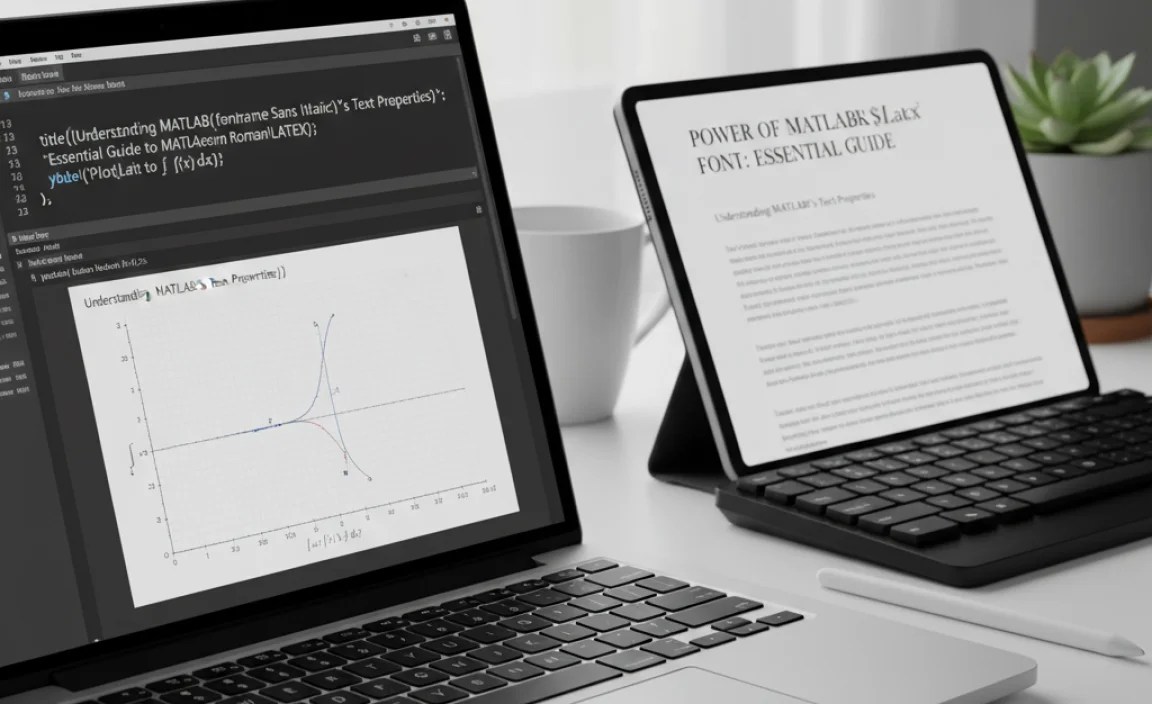
Before diving into LaTeX, it’s helpful to understand how MATLAB handles text in its graphics objects, particularly axes and figures. Key text properties include:
- String: The actual text content you want to display.
- FontName: The typeface of the text (e.g., ‘Arial’, ‘Times New Roman’).
- FontSize: The size of the text.
- FontWeight: Whether the text is ‘normal’ or ‘bold’.
- FontAngle: Whether the text is ‘normal’ or ‘italic’.
- Interpreter: This is the crucial property for our discussion. It tells MATLAB how to render the text string. The common options are ‘none’ (default), ‘tex’, and ‘latex’.
When the ‘Interpreter’ property is set to ‘tex’ or ‘latex’, MATLAB uses special commands within the text string to control formatting, symbols, and mathematical expressions. For our purposes, we’ll focus on ‘latex’.
Enabling the LaTeX Interpreter in MATLAB
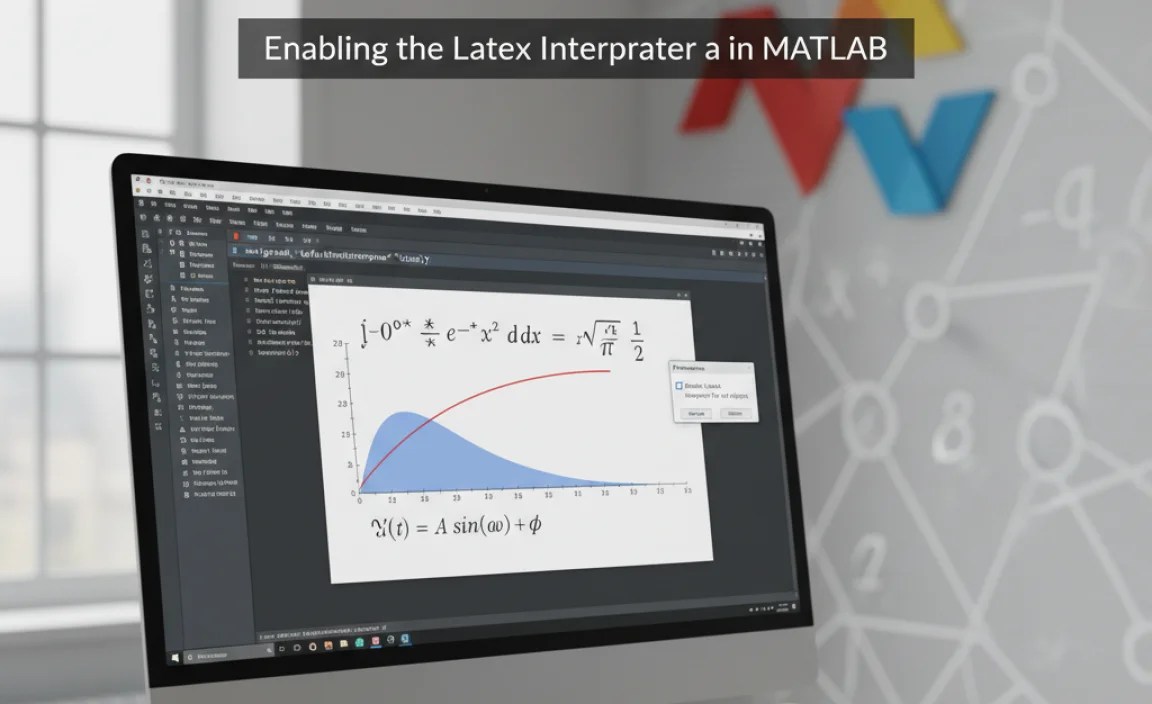
To use LaTeX commands, you need to tell MATLAB to interpret your text strings as LaTeX. This is done by setting the ‘Interpreter’ property of the relevant text object. Most commonly, you’ll do this when adding titles, axis labels, legends, or text annotations to your plots.
Here’s the basic syntax:
'Interpreter', 'latex'
You can apply this when creating graphics or by modifying existing ones.
Example: Setting a Title with LaTeX
Let’s say you have a plot and want to set its title using LaTeX for a Greek letter and some exponents.
In this example:
- We set the title using the string
'$sin(x)$ vs. $x$ with Amplitude $A=1$'. - Crucially, we added
'Interpreter','latex'to thetitlefunction. - Basic variables like
xandyare rendered as italicized variables, which is standard mathematical convention. - The
sinfunction is rendered in a roman font, also standard. - The dollar signs (
$) around parts of the text tell MATLAB that this section should be interpreted using LaTeX rules.
You’ll notice that the Greek letter $pi$ is automatically rendered with a backslash command: pi. More on these commands soon!
Essential LaTeX Commands for MATLAB
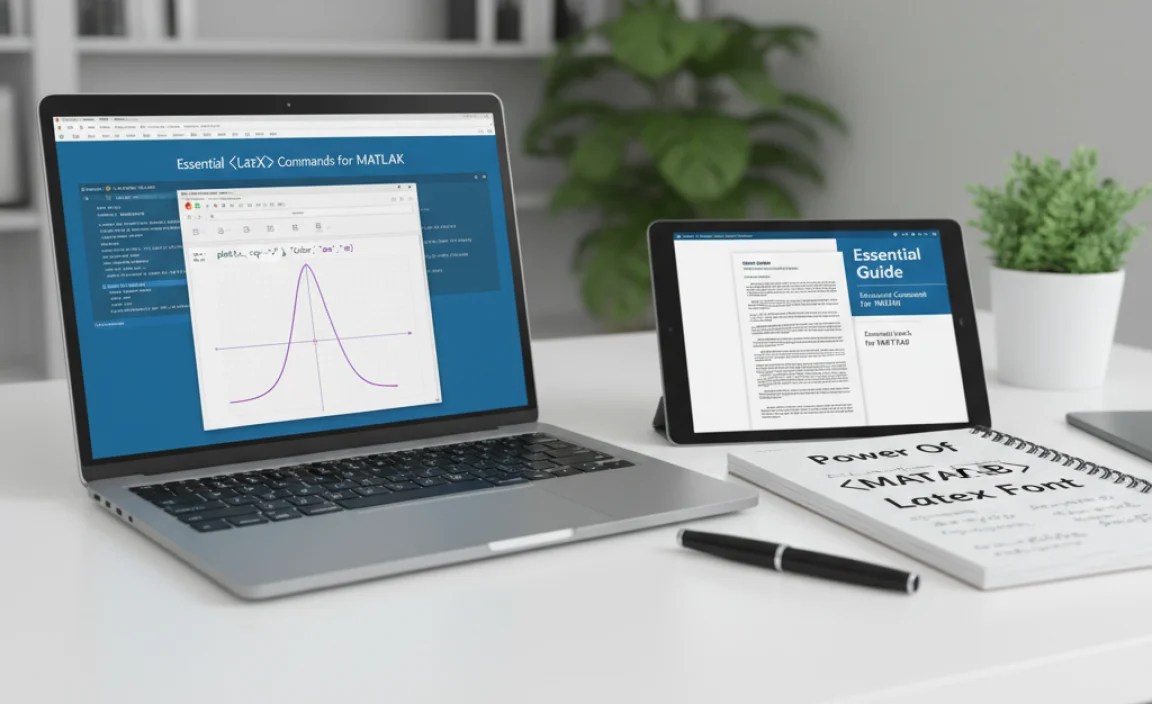
MATLAB supports a rich subset of LaTeX commands. While it doesn’t support all of LaTeX (e.g., complex document structuring commands), it covers the vast majority of needs for scientific plotting and labeling. These commands usually start with a backslash ().
Mathematical Symbols and Greek Letters
Subplot Titles
If you’re using multiple subplots (subplot command), you can label them using LaTeX as well.
Best Practices for Using MATLAB LaTeX Fonts
While powerful, using LaTeX effectively in MATLAB involves some best practices:
- Start Simple: Begin with basic Greek letters and common symbols. Gradually incorporate more complex expressions.